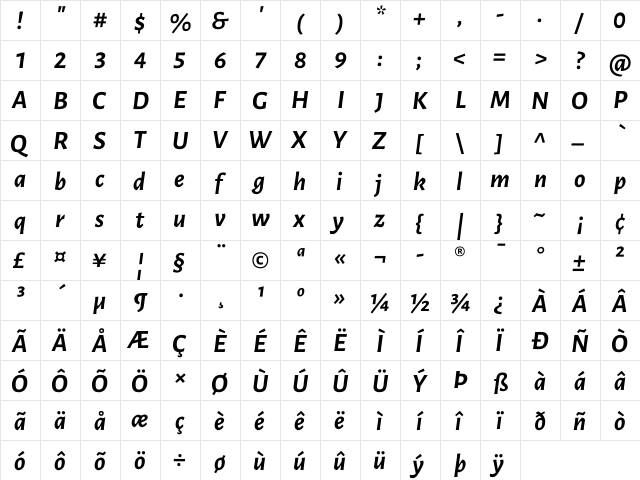
Luna Bold Italic
| Foundry | Huerta Tipografica |
| Designer | Juan Pablo del Peral |
Design Context for Luna Typeface
Luna offers clean, dependable letterforms without strong stylistic allegiance, making it a practical choice for designers who need flexibility. The slanted form adds forward momentum and visual energy. The heavy weight commands attention and anchors typographic hierarchies.
Pro Tip: Use Luna for emphasis, pull quotes, and subheadings where its slanted energy can add rhythm to the layout.